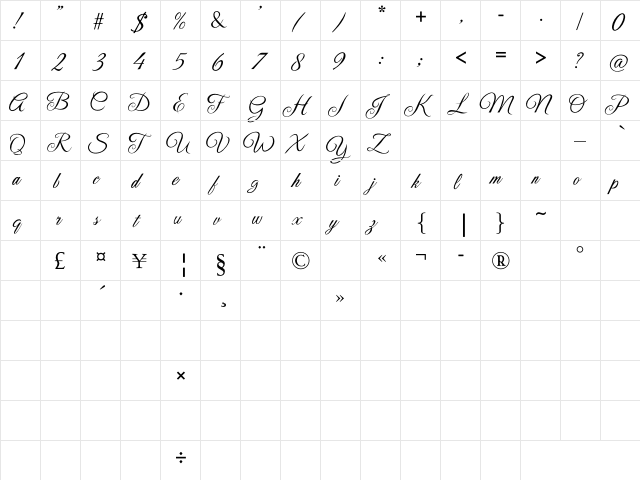
Laylantia Regular Font Preview
Laylantia Regular
Design Context for Laylantia Typeface
Laylantia is a composed and adaptable typeface that performs quietly and consistently across a wide range of design contexts.